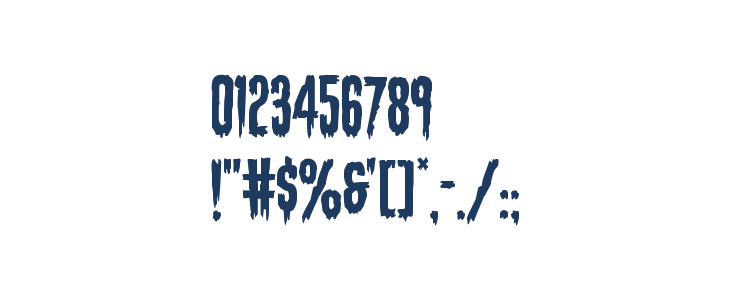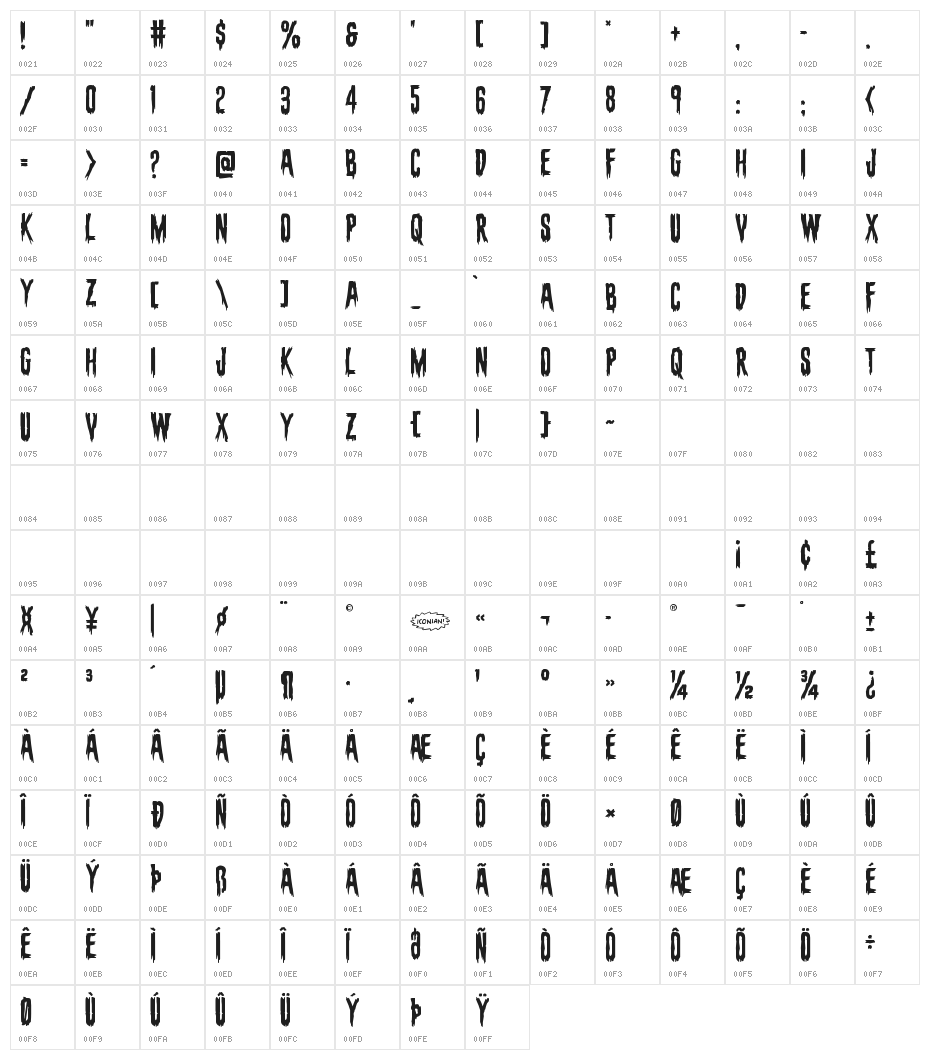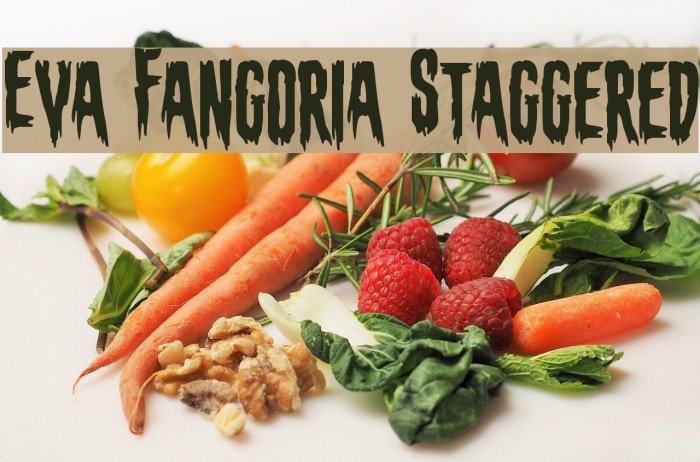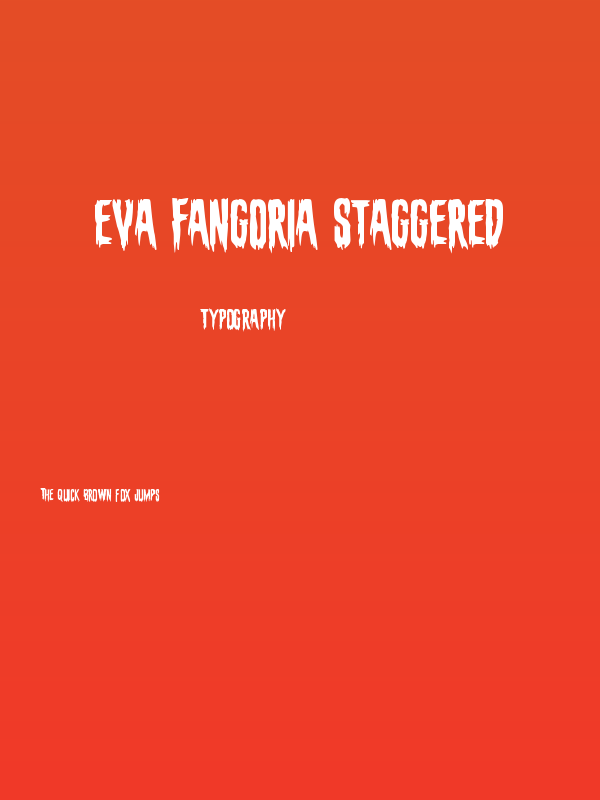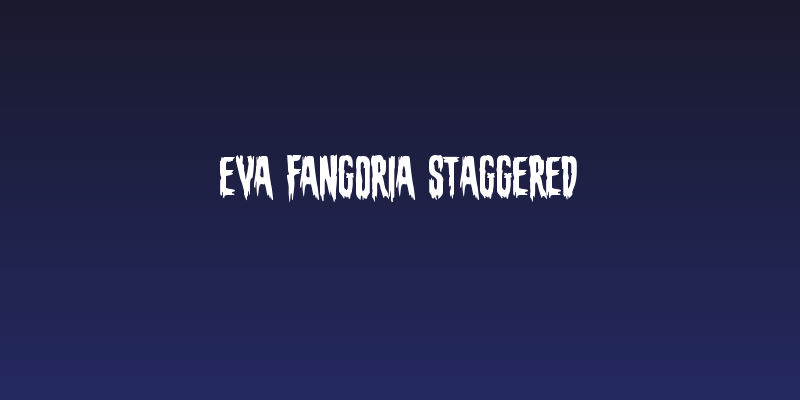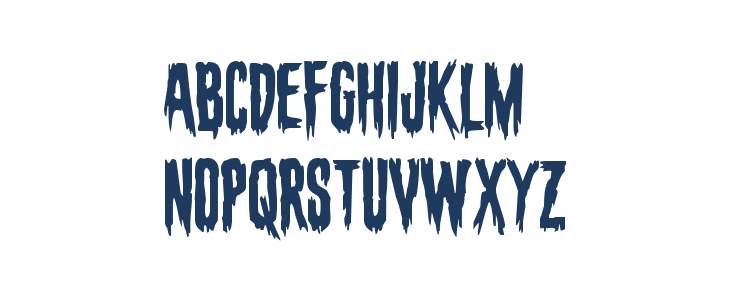
Eva Fangoria Staggered Font
Eva Fangoria Staggered Description
This font features a jagged, distressed appearance reminiscent of horror or thriller themes. The characters have an uneven, dripping effect that gives them a spooky, unsettling vibe. The uppercase and lowercase letters maintain a consistent style, with sharp edges and irregular strokes that suggest a sense of decay or erosion. The numbers and special characters follow the same aesthetic, making the font cohesive and visually striking. Its unique style is perfect for creating an eerie atmosphere in designs.
| Proposed Projects | Ideal for Halloween posters, horror movie titles, haunted house flyers, and spooky-themed event invitations. |